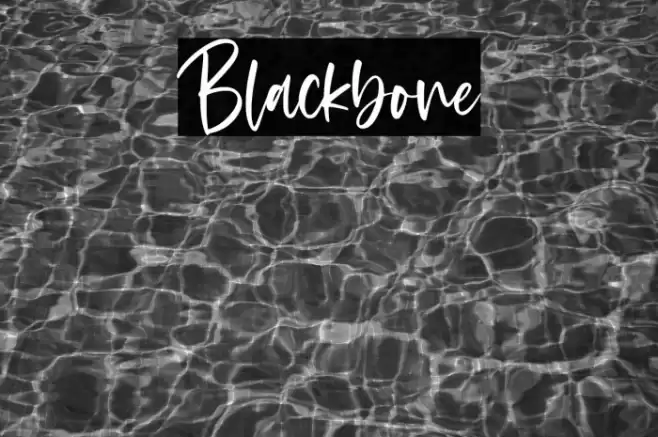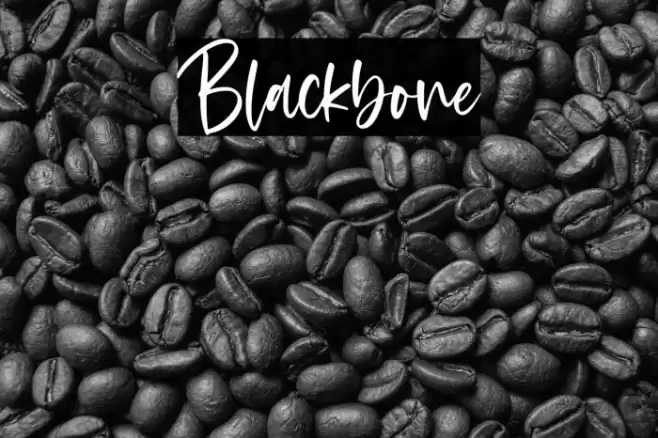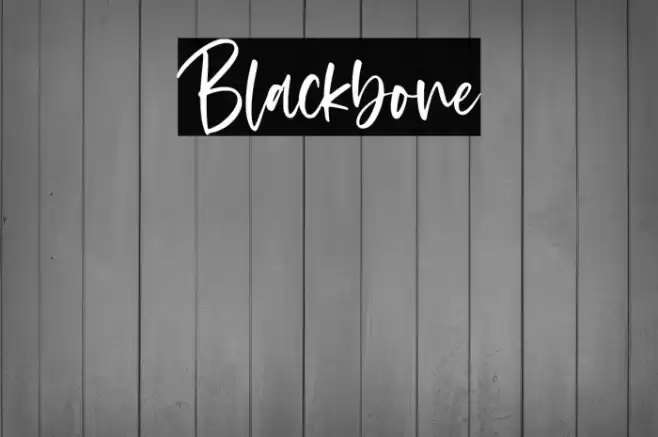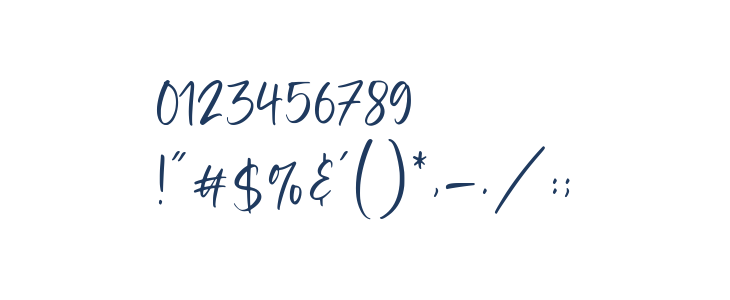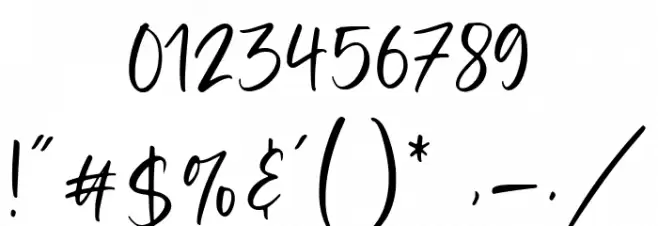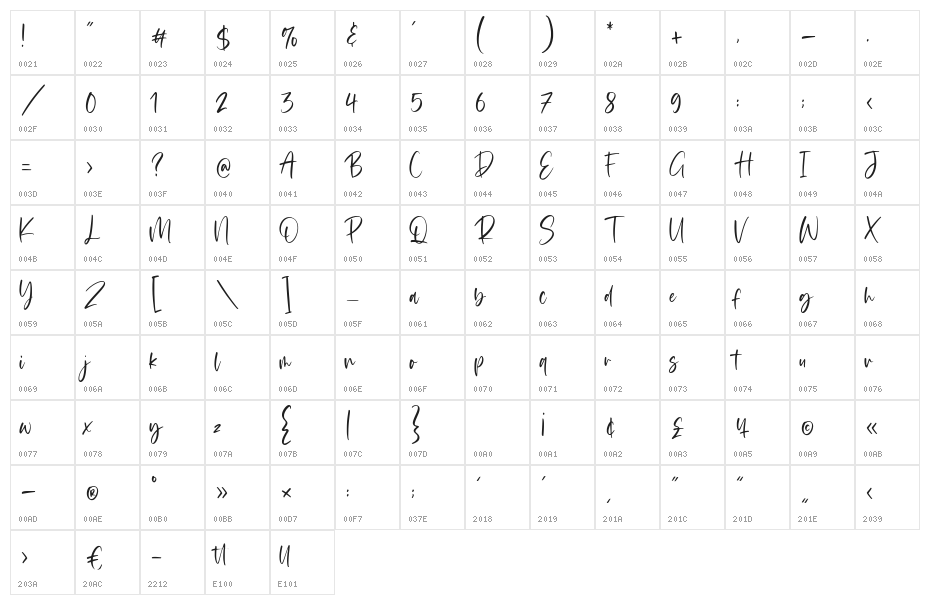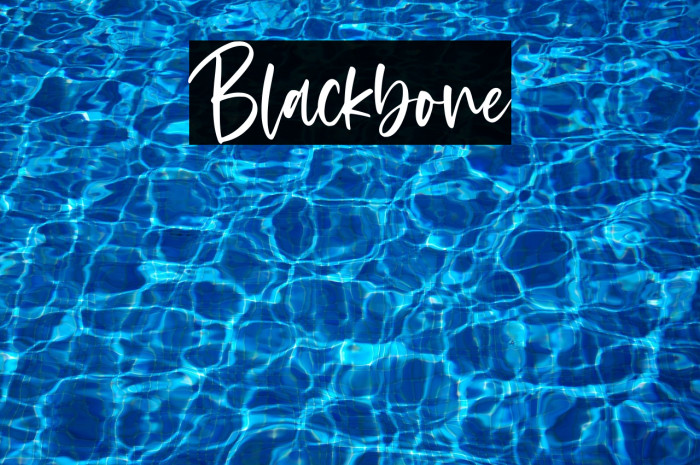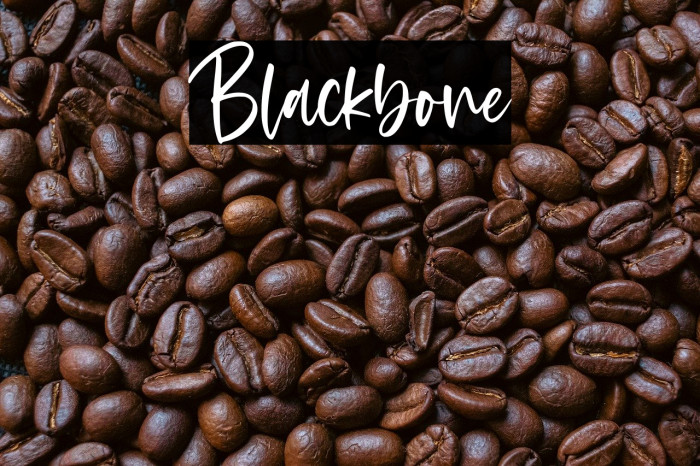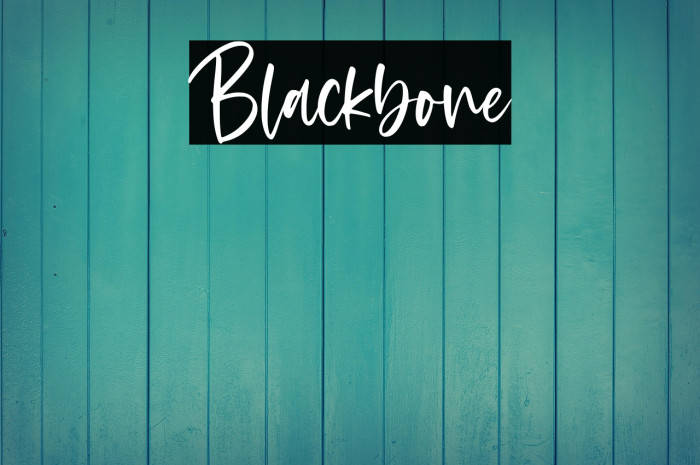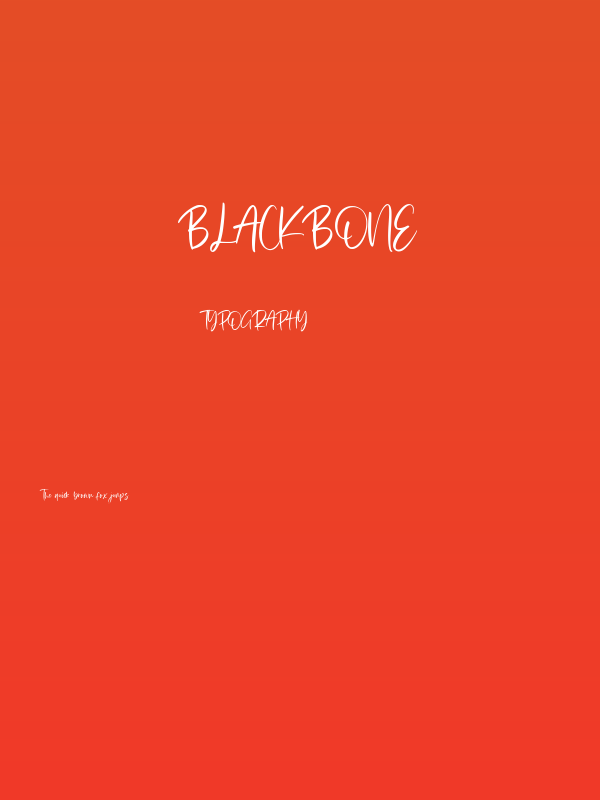
Blackbone Font
Blackbone Description
This font features a dynamic and expressive handwritten style, characterized by its fluid and organic strokes. The uppercase letters are bold and slightly elongated, giving a sense of movement and energy. The lowercase letters maintain a consistent flow, with some characters featuring playful loops and swashes. The numerals are clear and maintain the same lively aesthetic, making them easily readable. Special characters are integrated seamlessly, adding to the font's versatility. Overall, this font exudes a modern and artistic vibe, perfect for projects that require a personal touch.
- Proposed Projects: Ideal for branding, invitations, social media graphics, and creative projects that require a personal and artistic touch.
- Use Case: Logos, Headlines, Invitations